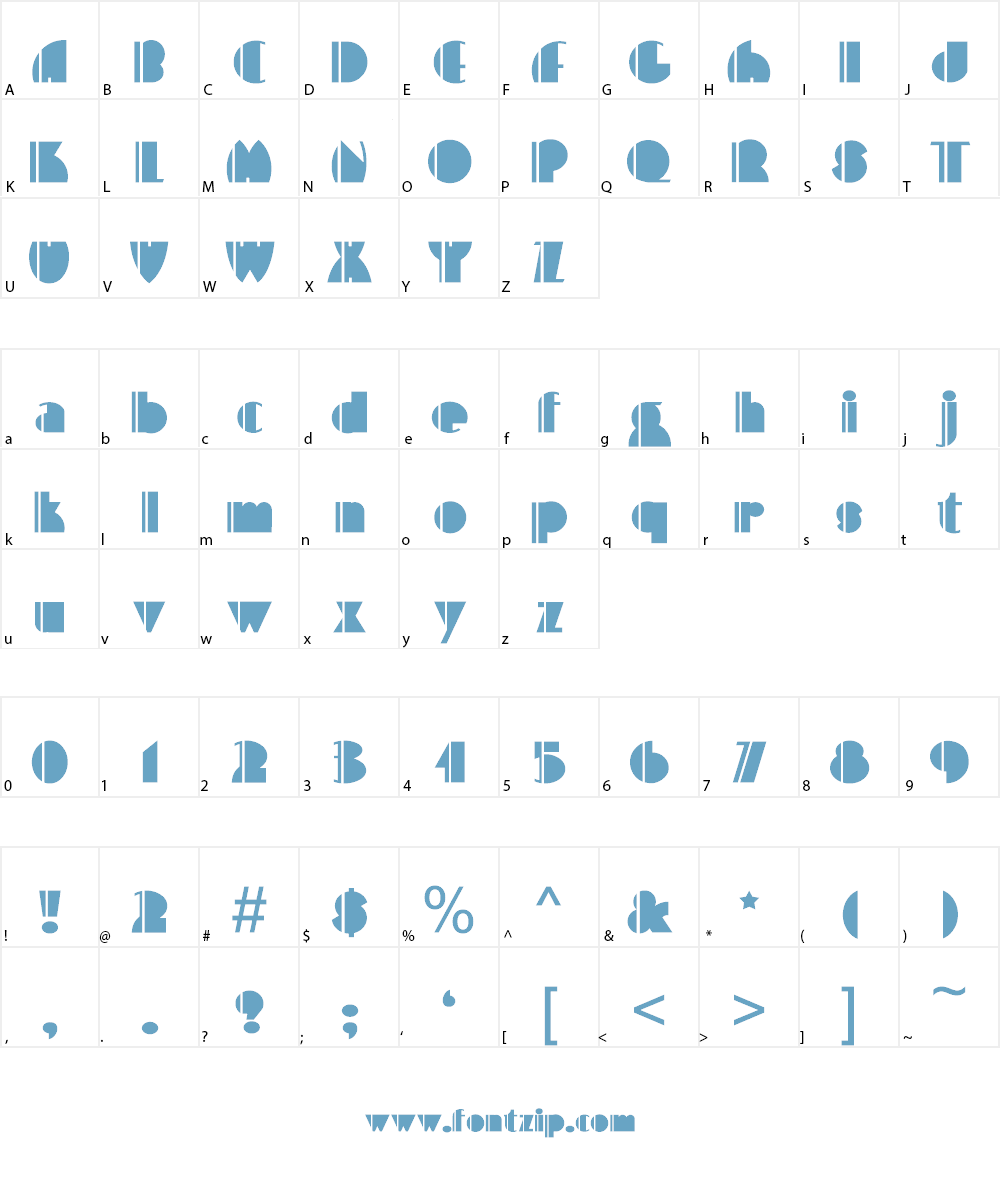
This font is based on an old favorite of mine from the 60s, called Bass Rainbow. This font has it all — playful Art Deco form, and a strong graphic element throughout.